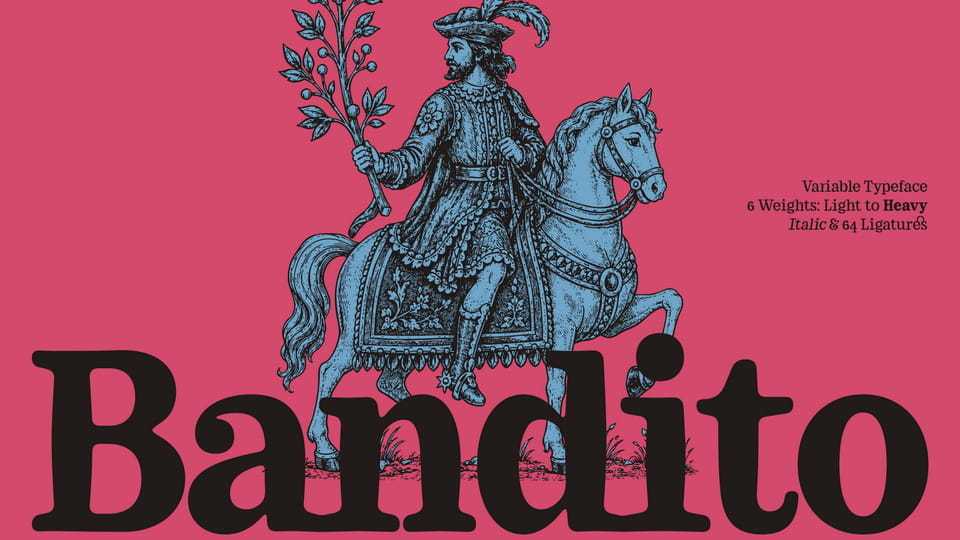
Download Bandito font, a contemporary rounded serif typeface rooted in the warmth, vitality, and quiet confidence of Italian typography. Drawing from the visual culture of vintage posters, printed matter, and a strongly expressive graphic tradition.
Designer: Unio Creative Solutions